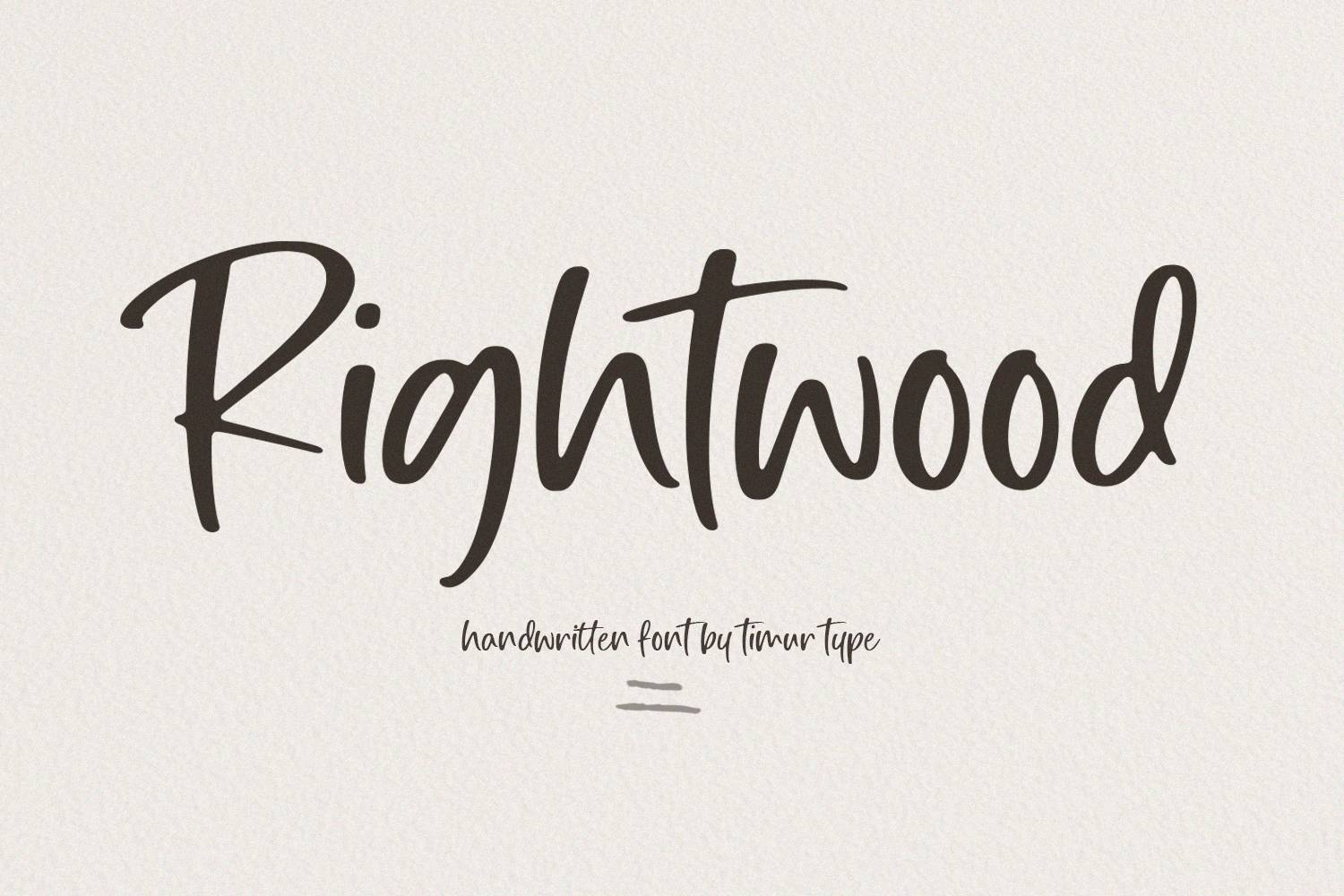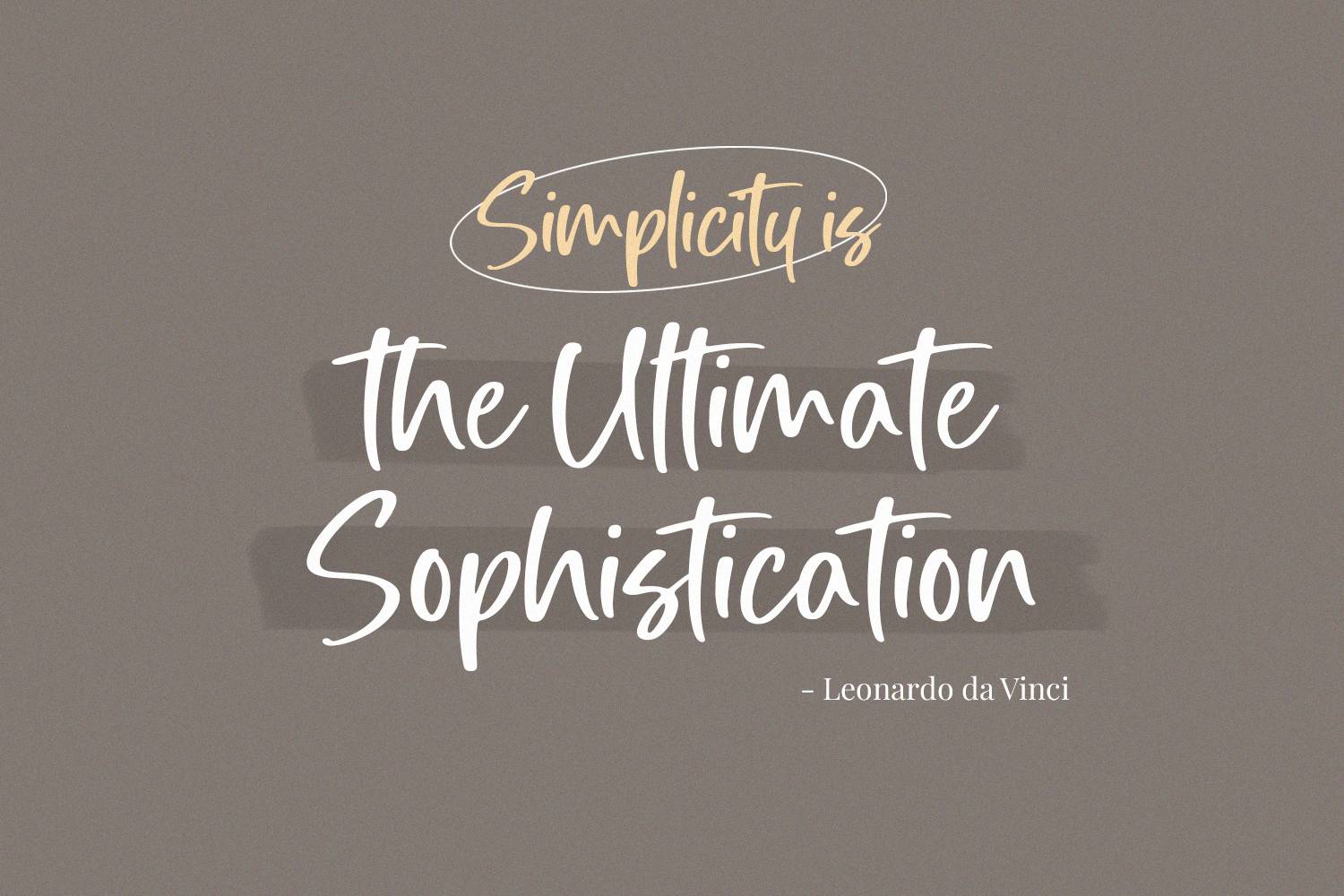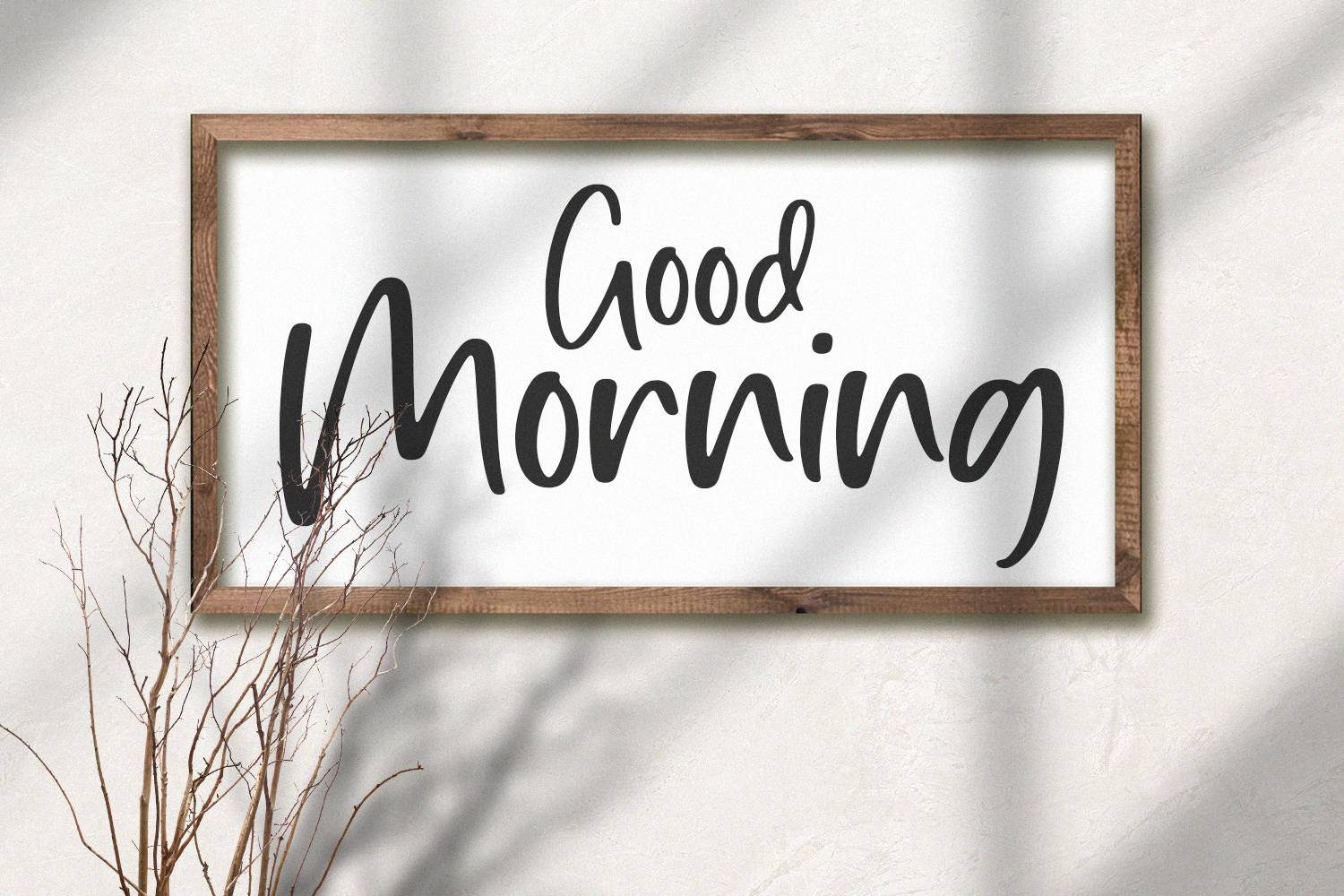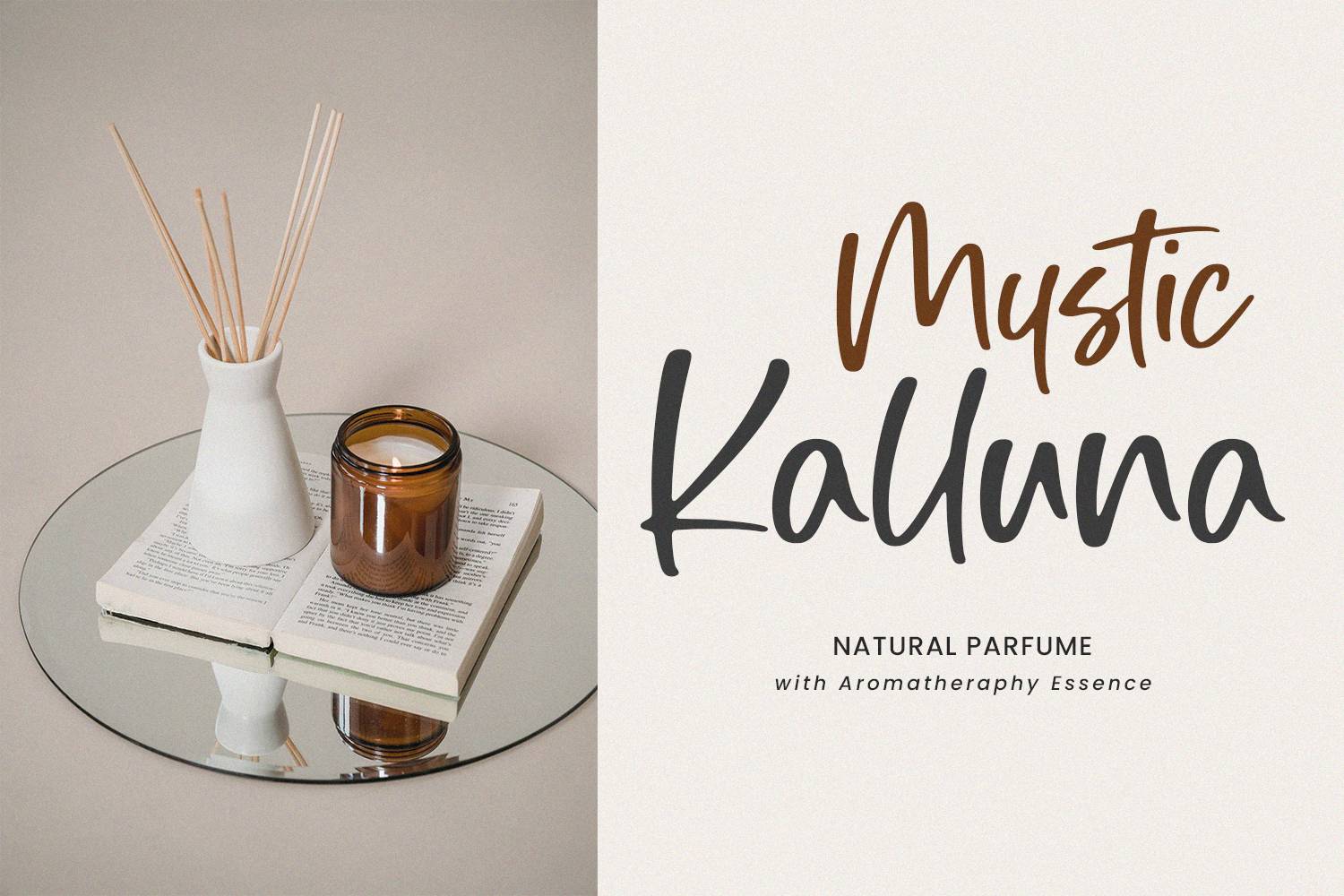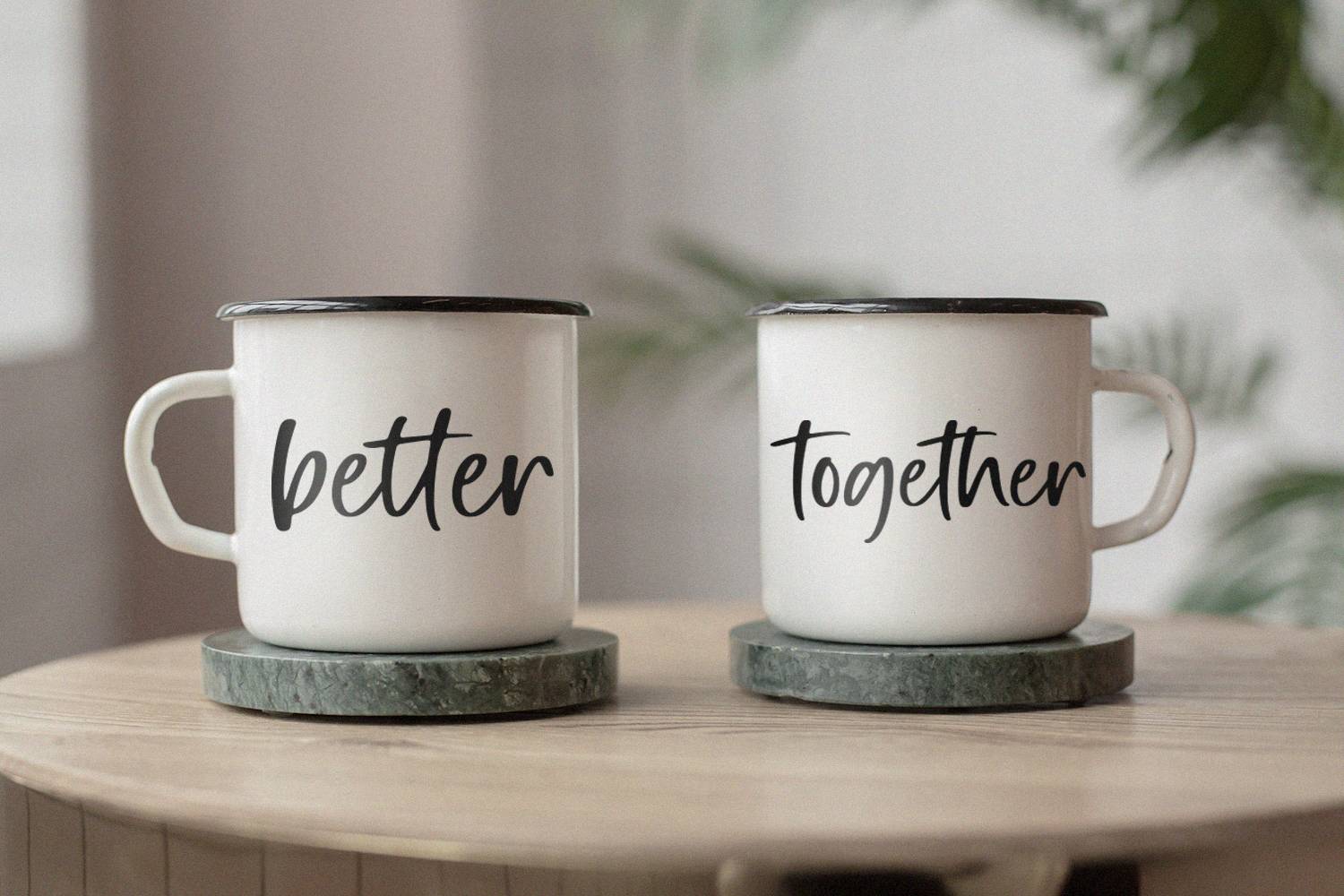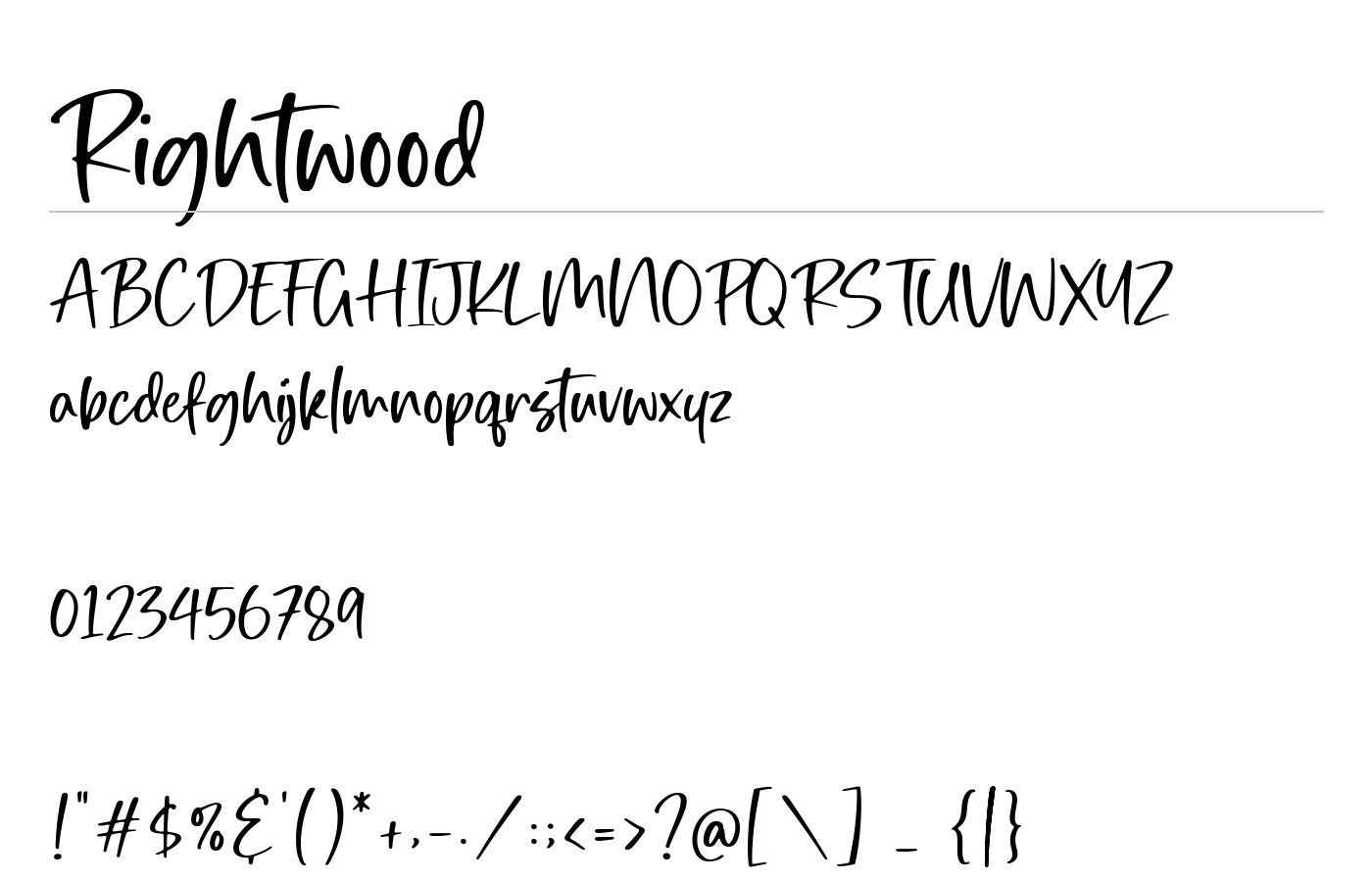
Rightwood is a casual, handwritten script font with a lively and friendly character. Its thin, slightly irregular strokes and tall x-height create an approachable yet stylish feel, making it ideal for personal branding, creative projects, and informal headlines that need a warm, human touch. This font works well on invitations, social media graphics, and lifestyle branding where a natural, authentic voice is desired.
Rightwood Font
About Rightwood Font